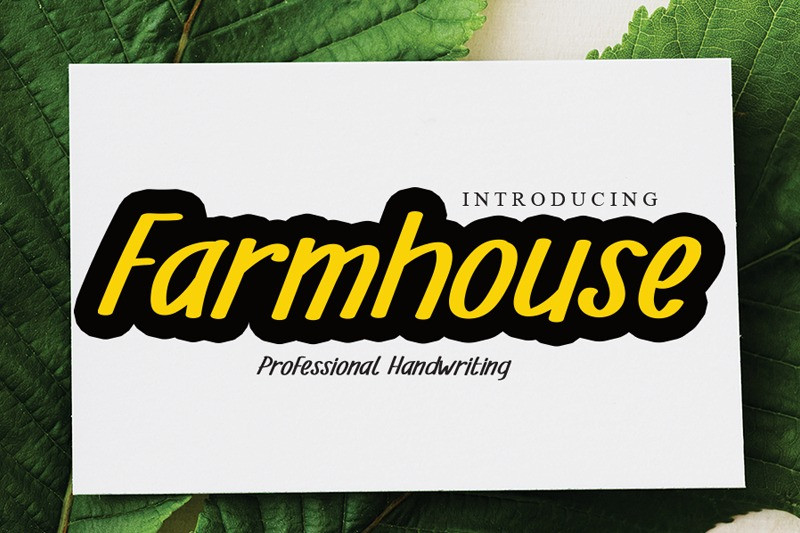
Farmhouse Handwriting Font
Farmhouse is a simple, sweet handwritten font. Incredibly versatile, this font fits a wide pool of designs, elevating them to the highest levels.